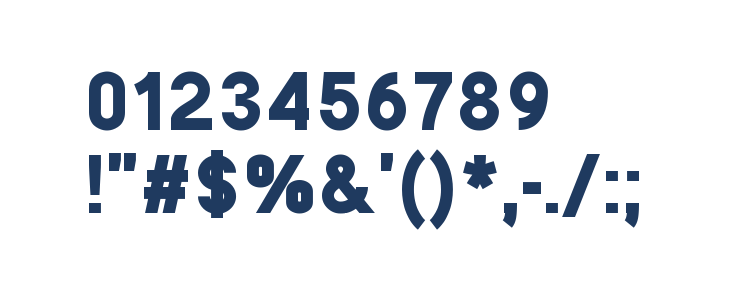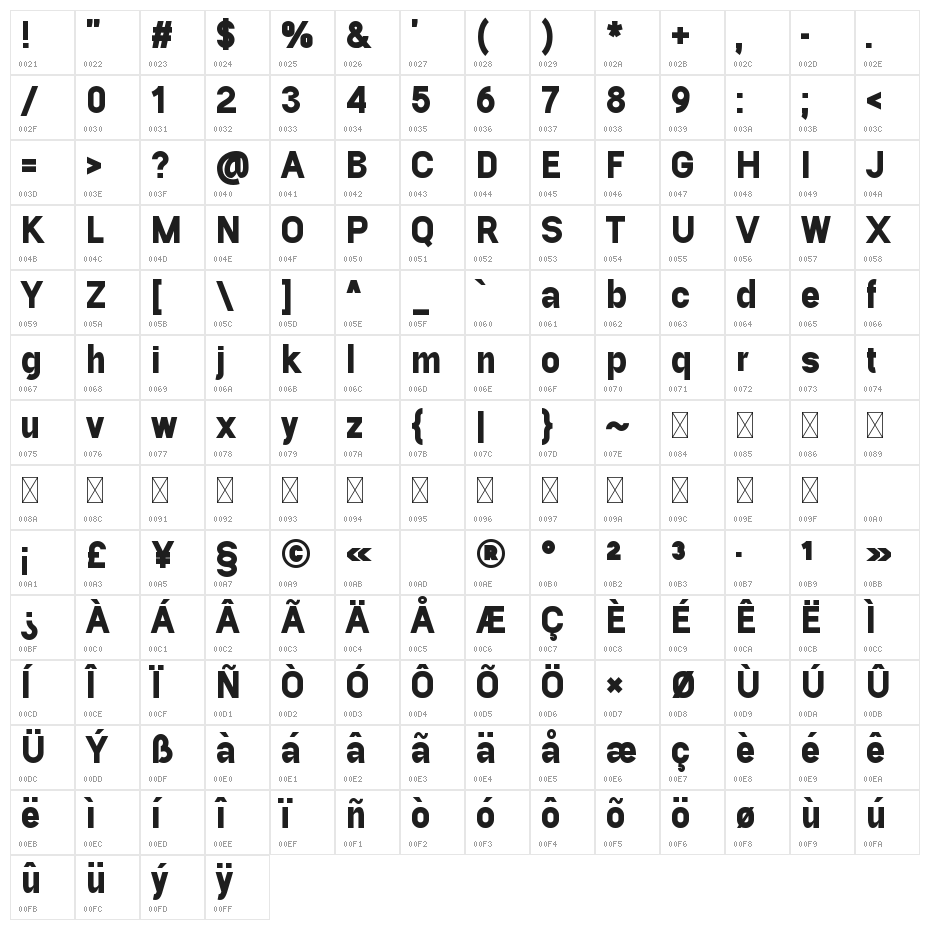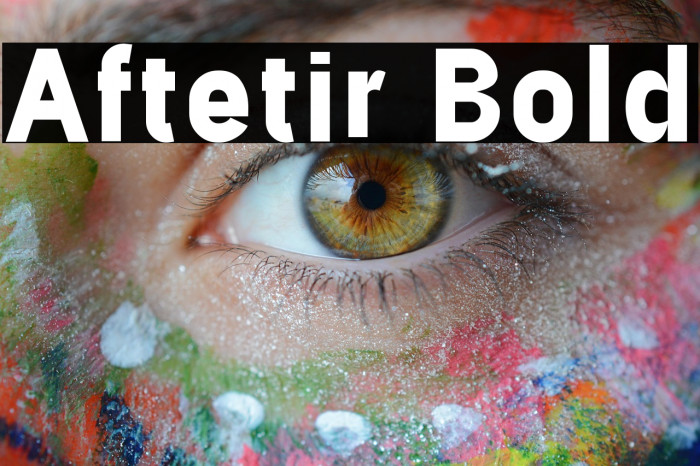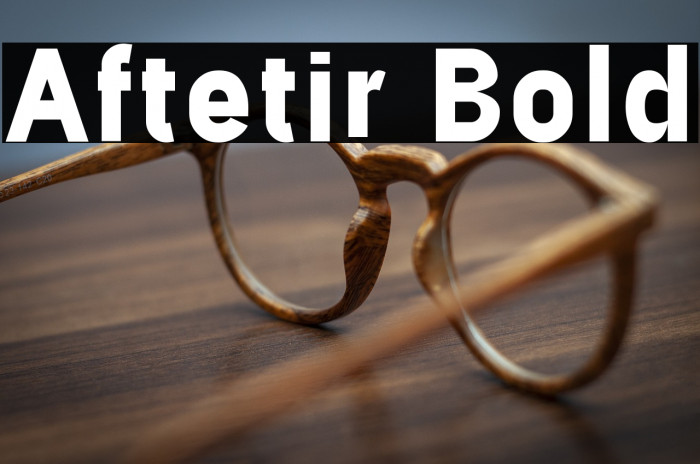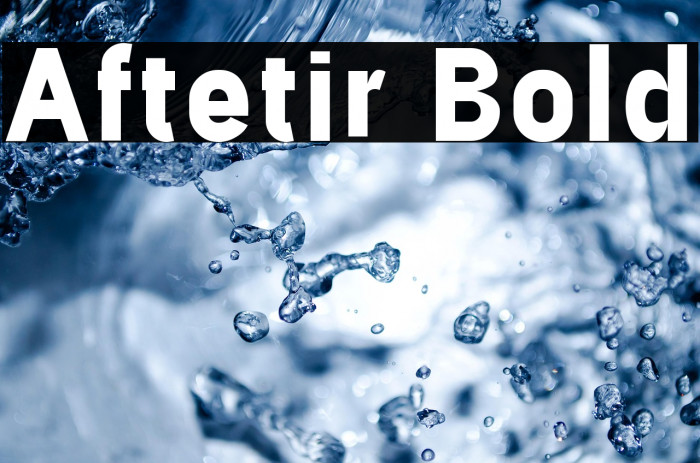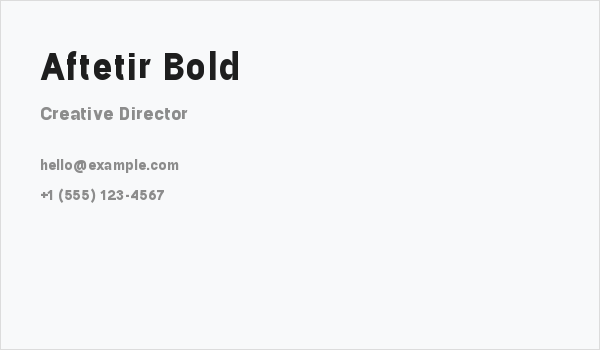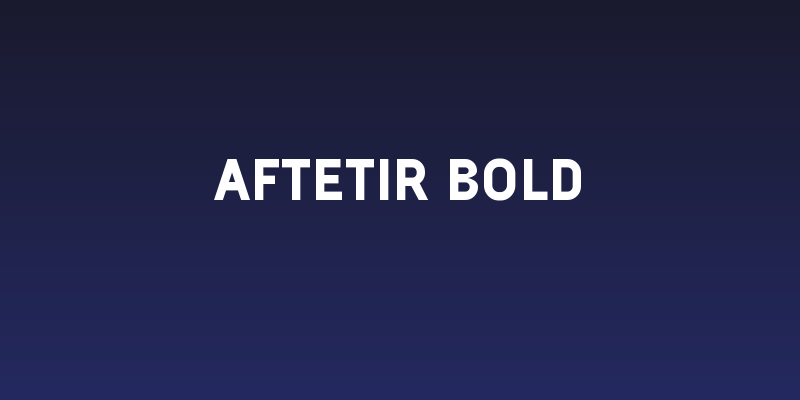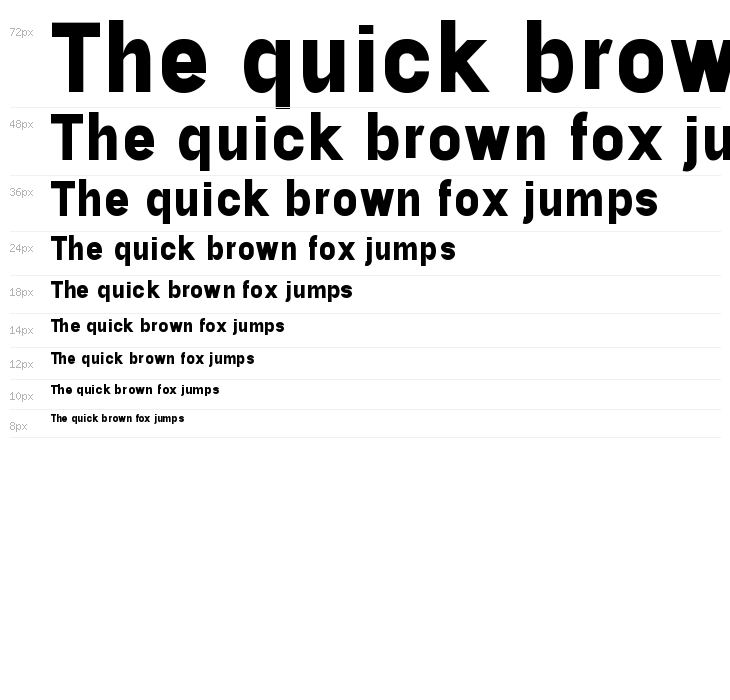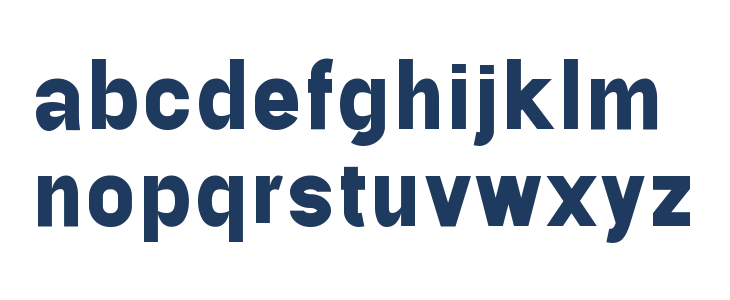
Aftetir Bold Font
Aftetir Bold Description
This font exhibits a bold and robust design, characterized by thick strokes and a strong presence. The uppercase and lowercase letters maintain a consistent width, providing a uniform appearance. The numerals are clear and easily distinguishable, while the special characters are well-defined, enhancing readability. The overall style is modern and impactful, making it suitable for attention-grabbing applications. The font's boldness ensures that it stands out in any context, while its clean lines and geometric shapes contribute to a professional and polished look.
| Proposed Projects | Ideal for headlines, posters, branding, and advertising where a strong visual impact is required. |